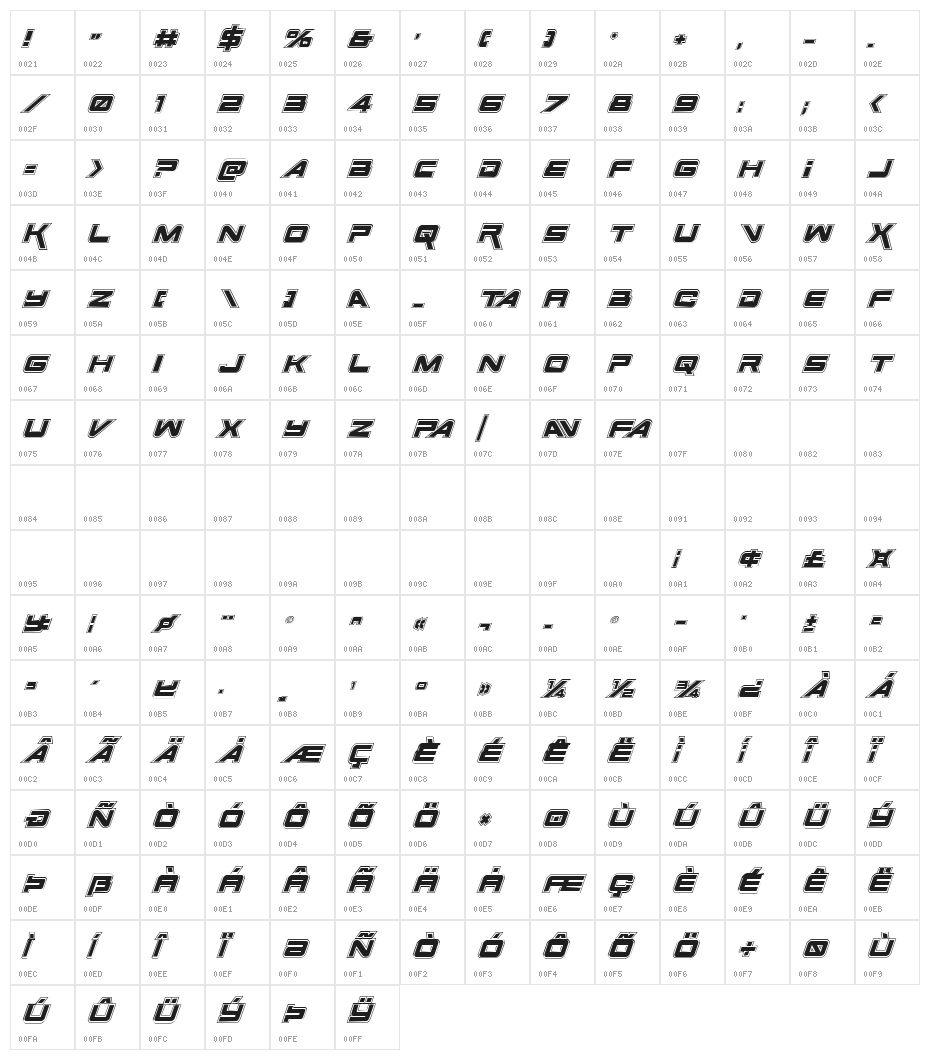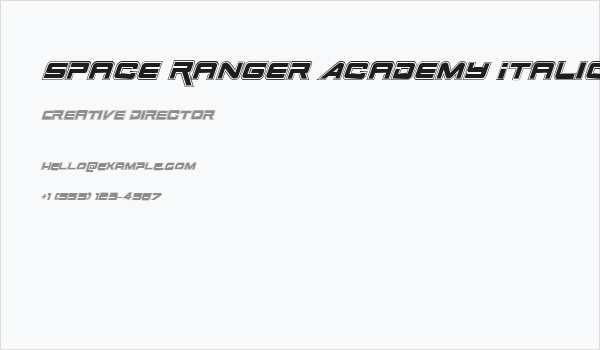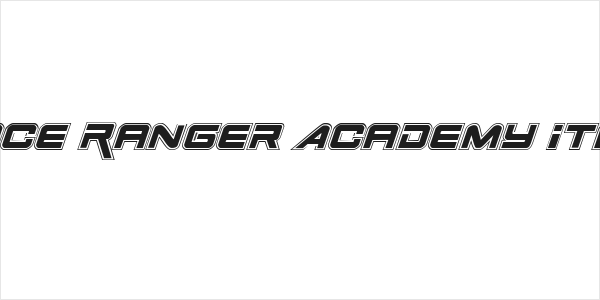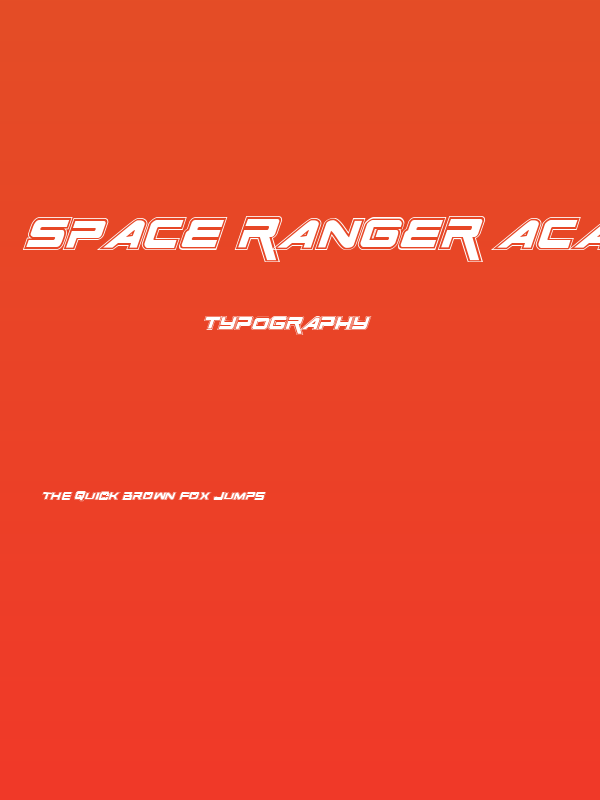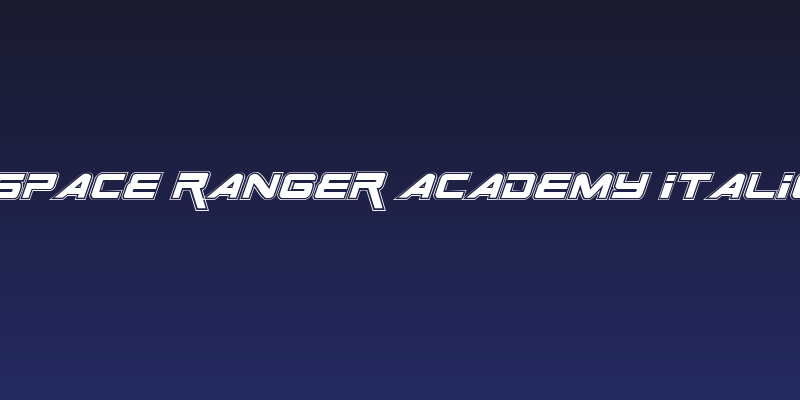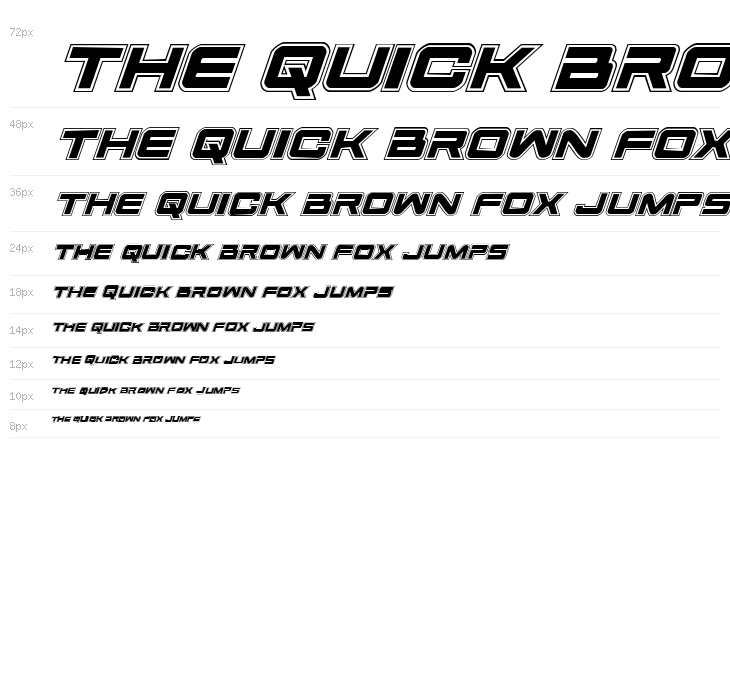
Space Ranger Academy Italic Font
Space Ranger Academy Italic Description
This font features a bold, futuristic design with sharp, angular edges and a distinct italic slant, giving it a dynamic and forward-moving appearance. The characters are outlined, creating a striking contrast that enhances readability while adding a layer of depth. The uppercase and lowercase letters maintain a consistent style, with the lowercase slightly smaller but equally impactful. Numbers and special characters follow the same design principles, ensuring uniformity across all glyphs. The font's modern aesthetic makes it suitable for projects that require a sense of innovation and speed.
| Proposed Projects | Ideal for sci-fi themed designs, video game titles, technology branding, and futuristic posters. |